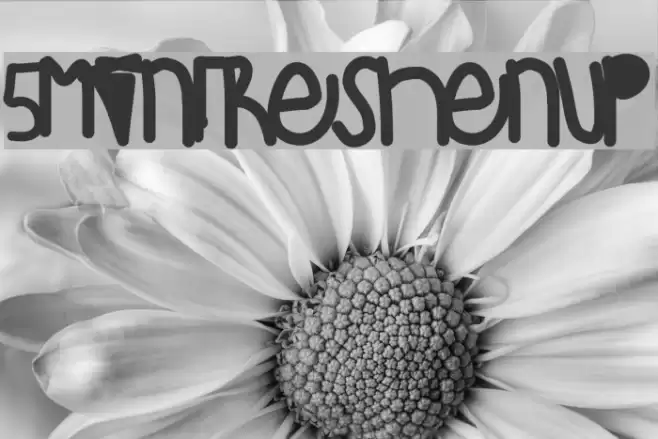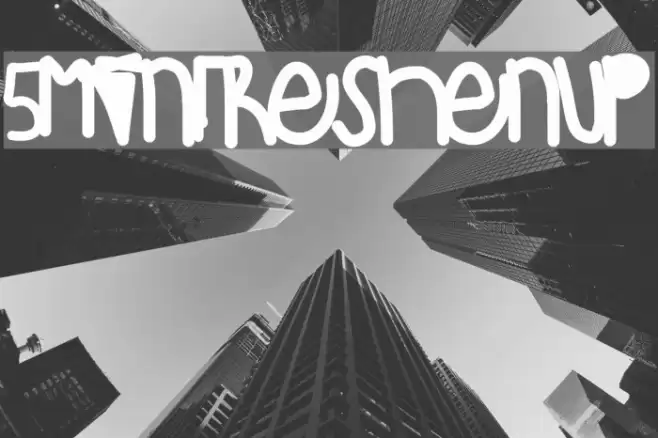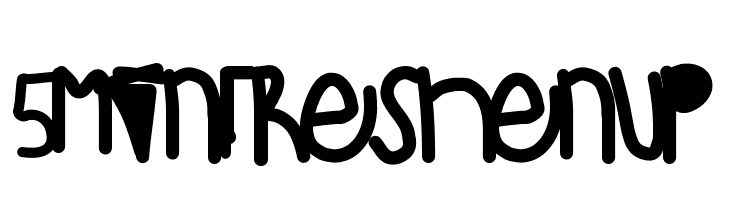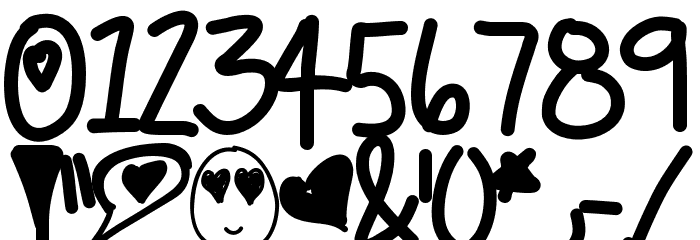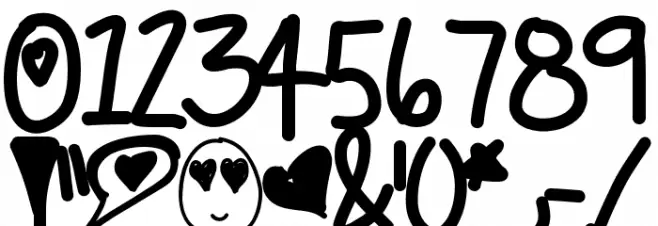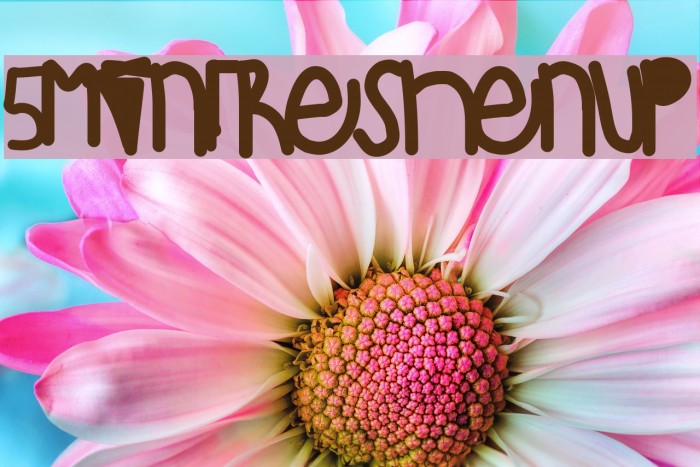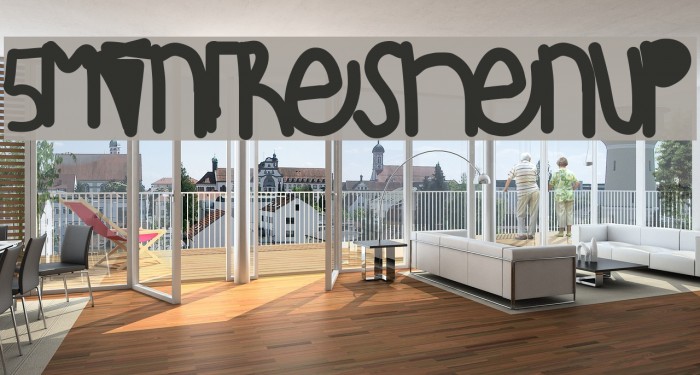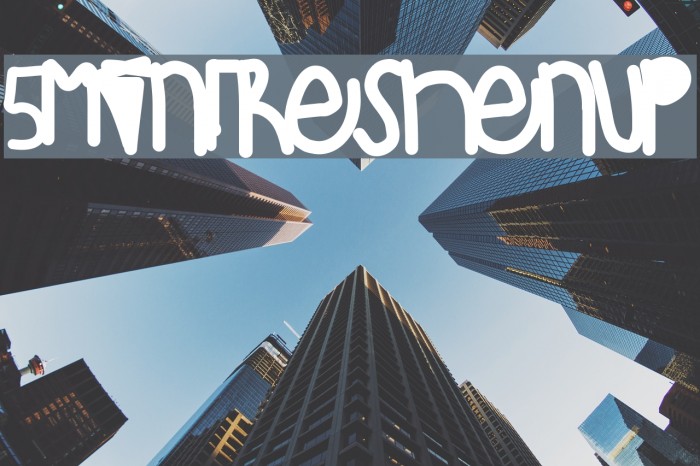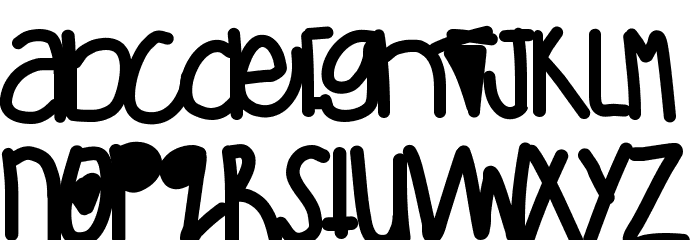
5MinFreshenUp Font
This font features a playful and energetic handwritten style, characterized by its bold and rounded letterforms. The strokes are thick and consistent, giving it a strong presence on the page. The uppercase and lowercase letters maintain a cohesive look, with slight variations that add to its charm. Numbers and special characters are crafted with the same playful spirit, making this font ideal for creative projects. The overall appearance is informal and friendly, perfect for designs that aim to convey a sense of fun and approachability.
A bold, playful handwritten font with rounded letterforms from Uncategorized fonts.
- Proposed Projects: Ideal for children's books, playful branding, greeting cards, and social media graphics.
- Overall Style: Playful